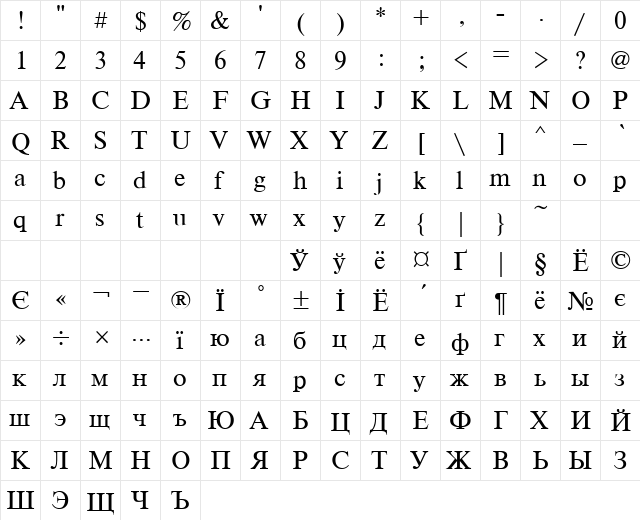
TimeKOI8 Regular Font Preview
TimeKOI8 Regular
TimeKOI8 Regular Font Details
Design Context for TimeKOI8 Typeface
TimeKOI8 takes a measured approach to typography — its balanced proportions and neutral character make it a reliable workhorse for both digital and print work.